In 2018, the Chinese e-commerce giant Alibaba raked in $30 billion in a single day–breaking a global sales record. As Alibaba continues to grow, the company is turning to design as a way of supporting all the digital merchants that power its business.
Like Amazon, Alibaba’s e-commerce business predominately provides a platform for smaller merchants who sell their goods through the company’s digital infrastructure, whether that’s on Alibaba.com (where wholesalers sell to small businesses), on the company’s more consumer-focused e-commerce websites like Taobao (China’s largest shopping website where small merchants hawk their goods), or Tmall, which is home to bigger brands.
But the many small businesses that use Alibaba don’t always have the resources to invest in branding, and as a result, there’s a lot of variation and confusing design among these sellers. Taobao, for example, can end up being a jumble of images and colors for users trying to navigate across it.
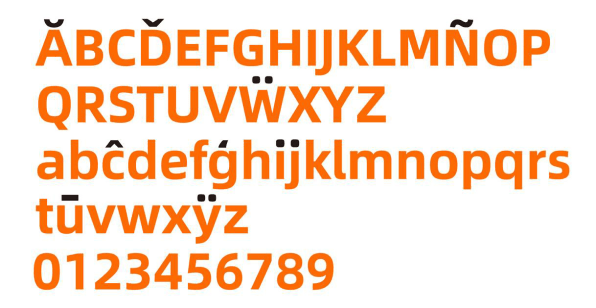
To help streamline its websites and standardize the design of its many small businesses, Alibaba is releasing its own typeface called Alibaba Sans, which will also be used in the company’s branding across its many divisions, from e-commerce and cloud computing to payment, logistics, and even entertainment. But Alibaba Sans is available for free for any of the small businesses that sell through Alibaba’s e-commerce platforms to use, too.
Designed by the U.S. type studio Monotype in the U.S., Alibaba Sans has 11 different weights and works across 172 different languages. A Chinese version, designed by Hanyi Font in China, has five weights and includes 116,895 Chinese characters. “The rigid Black weight, for example, represents the stability of the company,” Akira Kobayashi, Monotype’s type director for Asia Pacific, tells Fast Company via email. “On the other hand, the Light Italic weight is appropriate for items that need to appear more approachable. The varied weights give the typeface flexibility.”
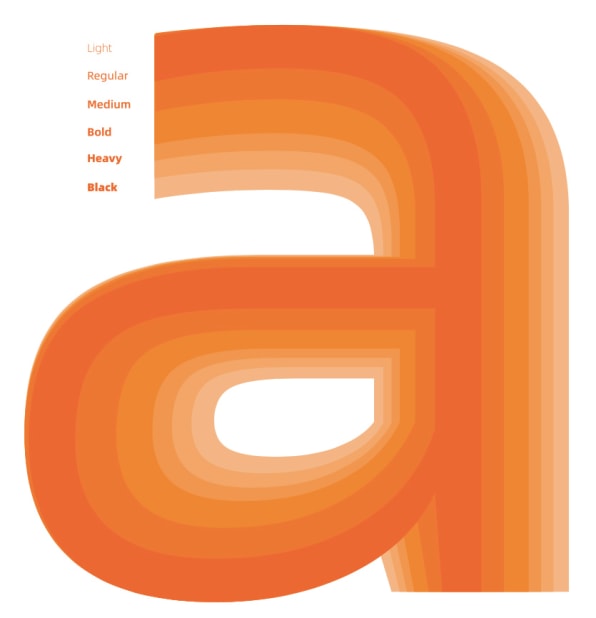
Most importantly, each character had to be easy to read at all sizes, though the designers prioritized smaller sizes because of Alibaba’s mobile-first clientele. “The various fonts were all designed to be aesthetically pleasing from small to large sizes across any device or location—from display screens, across multiple office buildings on the company campus, to e-commerce marketplaces,” Kobayashi says.
The font is meant to be an amenity for small businesses that may not have invested in branding. The company has also provided a video editing tool that automatically transforms a product page into a short promotion and an AI-powered tool that writes product copy based on millions of samples for its merchants to use for free. While an Alibaba spokesperson says that the aim is not to homogenize the design of the small brands on the platform, Alibaba Sans does seem like a way for the company to offer a more streamlined visual experience to shoppers while elevating the design of its site as a whole. That could make it harder for individual merchants to stand out, especially if many of them adopt the font. Still, Alibaba Sans may make the user experience for consumers better by elevating the design of each small business.
If you look closely, the font itself has a bit of a hidden agenda: If a user types the word “Alibaba,” the typeface automatically changes the glyphs so they more closely resemble the company’s wordmark, including a wider-set capital “A” and a lowercase “l” without a tail. So in the end, anyone who uses Alibaba Sans will undoubtedly be giving the company’s brand a boost.